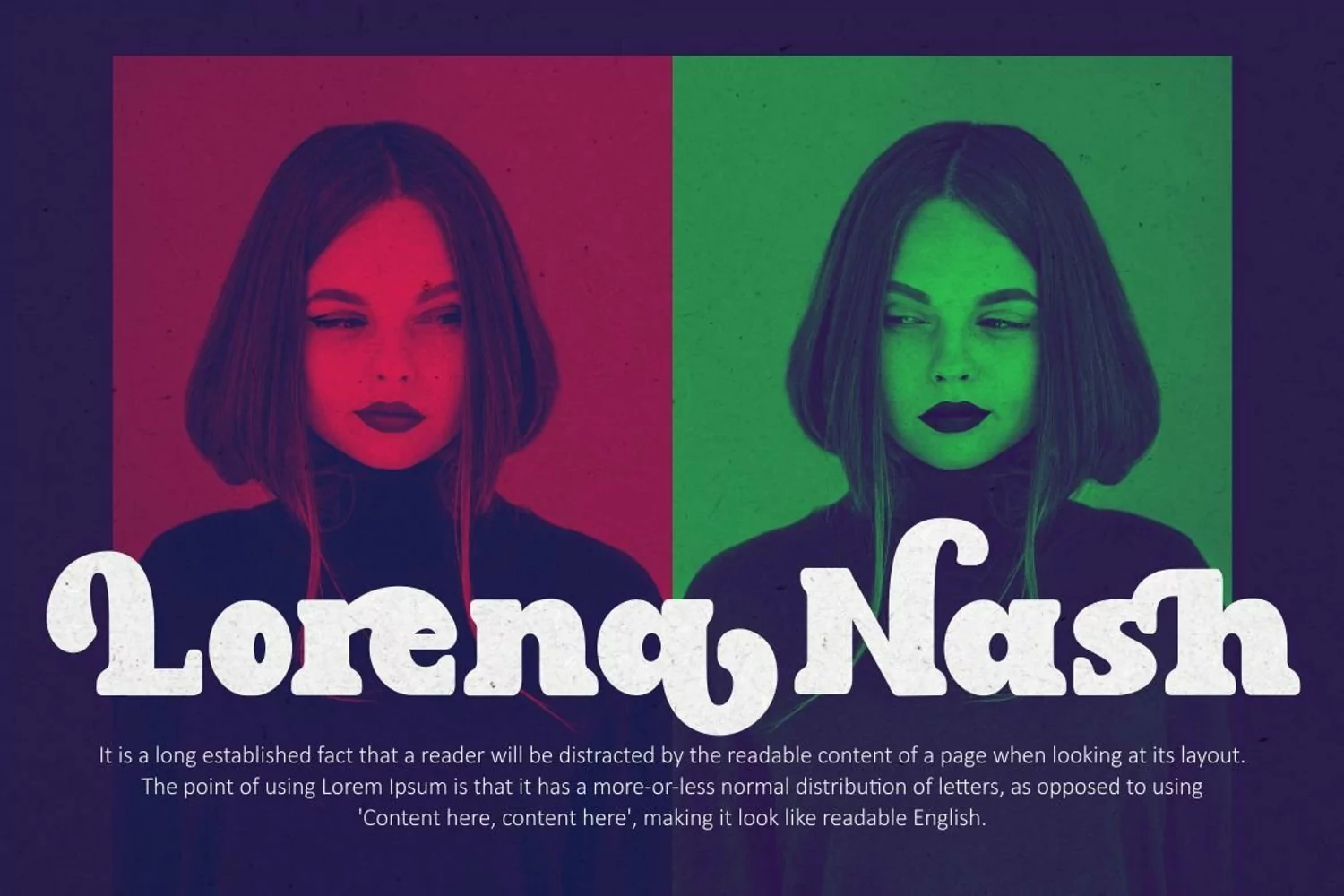
East Aurora - Bold Serif Font
East Aurora - Bold Serif Font. East Aurora is a bold vintage style serif font with strong character and soft features. East Aurora is equipped with Swash, Stylistic and Titling alternates as well as with Standard and Discretionary Ligatures
And this font East Aurora is a stylish font that is both retro and bold font. It's thick curves give a 70s groovy vibe with the serifs bringing it slightly back to traditional. Comes with alternatives and ligatures, helps to create stunning logos, quotes, posts, blog posts. branding projects, magazine imagery, wedding invitations, and much more.
The alternative characters were divided into several Open Type features such as Swash, Stylistic Sets, Stylistic Alternates, Contextual Alternates, and Ligature. The Open Type features can be accessed by using Open Type savvy programs such as Adobe Illustrator, Adobe InDesign, Adobe Photoshop Corel Draw X version, And Microsoft Word. This font is also support multi language.